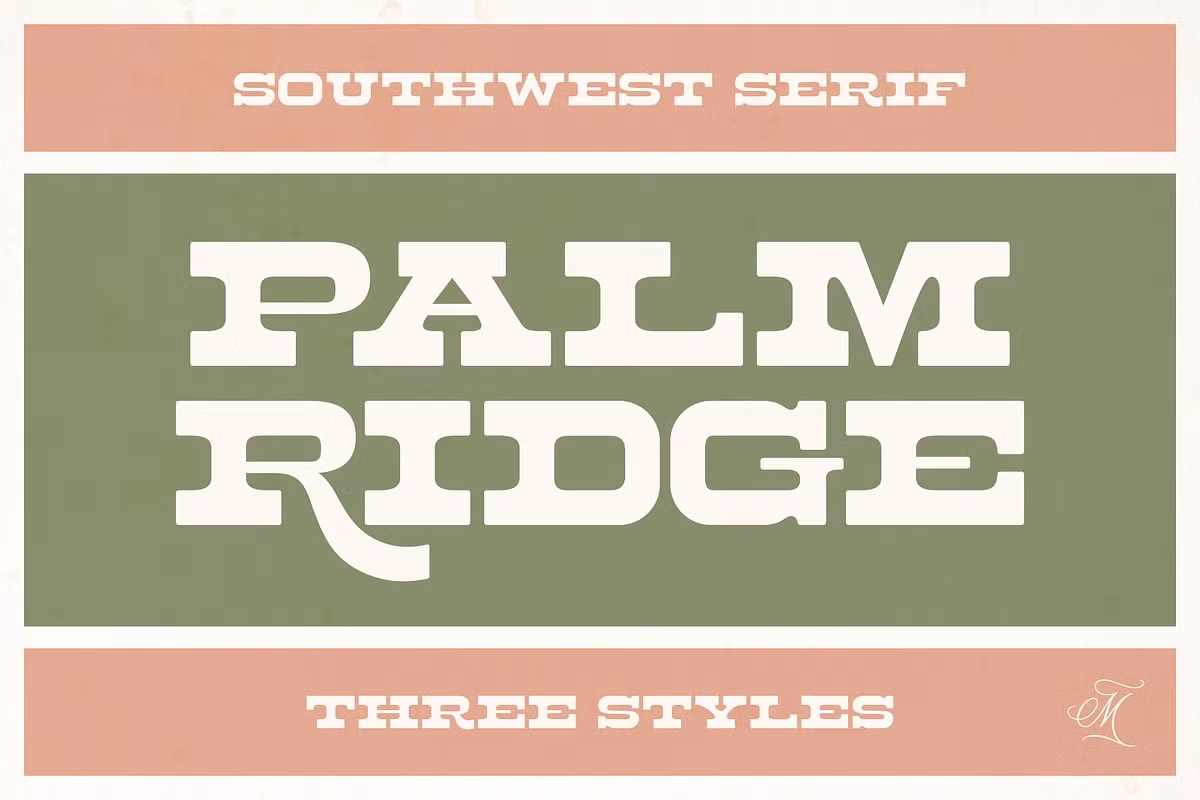
Capture the essence of retro charm with Palm Ridge Midcentury Southwest Font Free Download. This bold, vintage-inspired typeface evokes the spirit of midcentury design and southwestern style, making it perfect for branding, logos, posters, product packaging, and more.
Palm Ridge features strong, geometric letterforms with distinctive curves and a warm, earthy feel. It includes uppercase and lowercase letters, numerals, punctuation, and stylistic alternates—ideal for creating dynamic, eye-catching layouts that showcase retro style and sophistication.